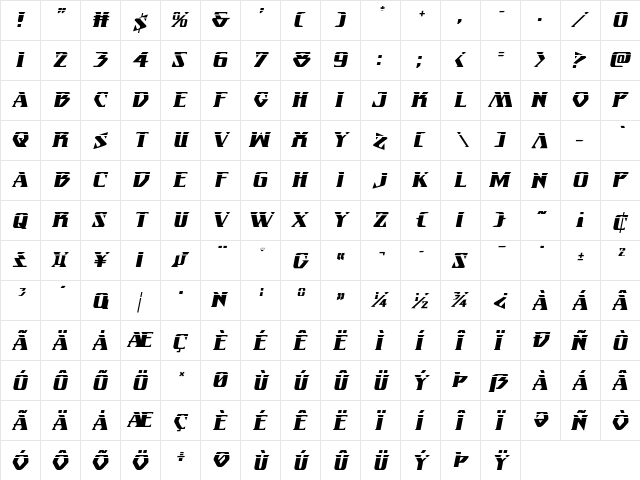
Eternal Knight Laser Italic Italic
Design Context for Eternal Knight Laser Italic Typeface
Eternal Knight Laser Italic is a composed and adaptable typeface that performs quietly and consistently across a wide range of design contexts. Its italic angle brings a sense of urgency and motion to the letterforms.